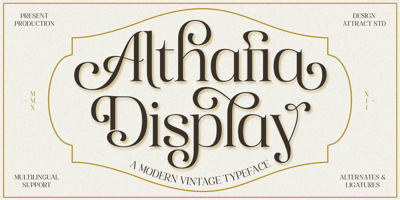
Althafia Display
Althafia Display font
Althafia Display Font Family was designed by Muammar Kadafi and published by Attract Studio. Althafia Display contains 2 styles and family package options. Althafia Display is a fancy display serif font with a unique character inspired by old-style serifs and contemporary serif fonts.Has dozens of fancy Alternates and Ligatures to combinein making Labels, signage, titles, logos, and many other creative projects.Include: 2 Weights Alternates & Ligatures OpenType support Multilingual PUA Encoded.